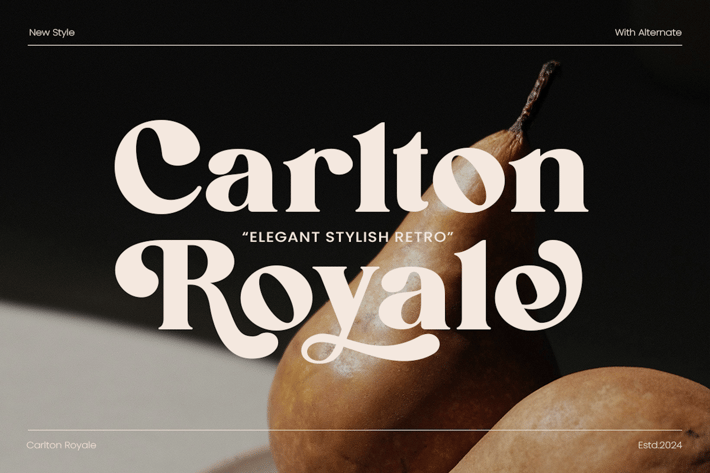
Carlton Royale Display Serif Font Luxury Branding
Carlton Royale is an elegant display serif font designed for luxury branding and upscale visuals. With sharp serifs, refined curves, and a timeless aesthetic, it’s ideal for high-end fashion brands, boutique packaging, wedding stationery, and editorial use.
Its bold presence and graceful structure give any project a premium and confident look.
Key Features:
- Luxurious serif style with sharp details
- Best for logos, brand identity, and large headings
- Perfect balance of elegance and boldness
- High readability in both digital and print
- Number & Punctuation
- Alternate
Carlton Royale brings sophistication and authority to your most premium design projects.